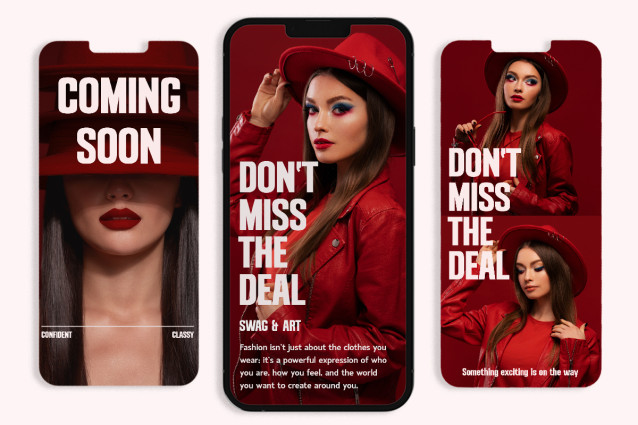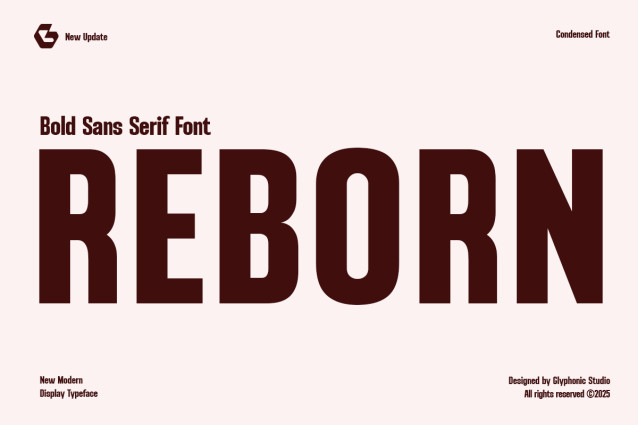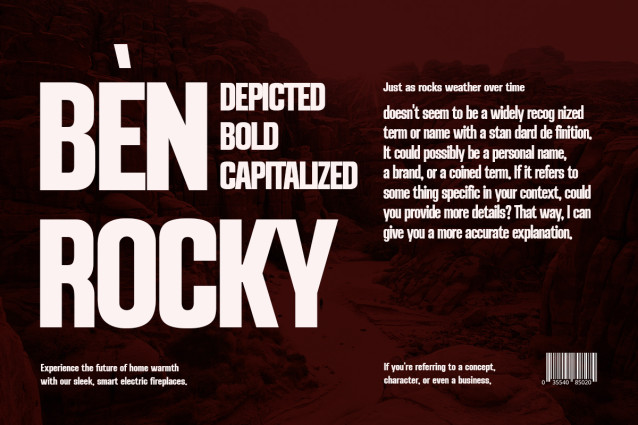
Reborn Sans Font
Reborn Sans Font is a Bold Sans Font that blends elegance with bold style. Perfectly suited for headlines, branding, logos, packaging, editorial layouts, it’s crafted to leave a lasting impression.
With its high contrast strokes, modern sans, and future style, REBORN brings personality and sophistication to any design.
Whether you’re designing for fashion, lifestyle, or artistic visuals, this typeface offers versatility and refined style.